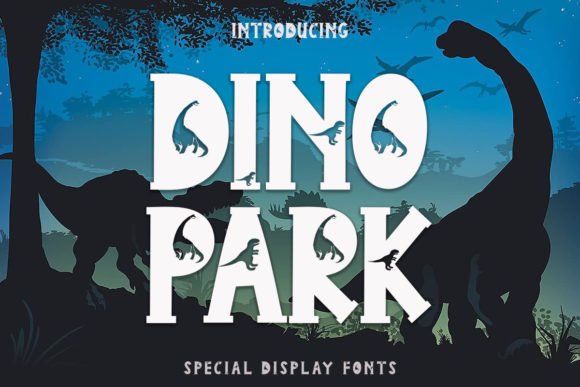
Discover the Roar of Creativity with Dino Park Font
Do you remember the excitement of drawing dinosaurs as a child? The thrill of bringing those prehistoric creatures to life with every scribble and every color? That same sense of wonder and creativity is exactly what Dino Park Font aims to capture, making it the perfect companion for any project that needs a dash of fun and playfulness.
As a display font, Dino Park Font is designed to be friendly and approachable, making it an ideal choice for children’s activities, school projects, and any other endeavor that requires a youthful and energetic vibe. With its unique blend of authenticity and playfulness, Dino Park Font is a valuable addition to any designer’s toolkit, offering endless possibilities for creative expression.
Dino Park Font Key Features
- Font Family: Dino Park Font is a unique, hand-drawn font family designed to resemble a dinosaur park.
- Character Count: The font family includes over 400 characters, including uppercase and lowercase letters, numbers, punctuation, and special characters.
- Unique Characteristics: The font features a mix of playful, handwritten, and bold styles, with unique flourishes and textures that evoke the feeling of a dinosaur park.
Dino Park Font Review
I recently had the chance to work with the Dino Park Font, and I have to say, it’s a fun and quirky addition to any design project. ✨ The font’s unique blend of modern and retro elements makes it perfect for creating eye-catching headlines and titles. The bold, chunky letters are sure to grab attention and add a touch of playfulness to any design.
Here are some of the things that work well with the Dino Park Font:
- Unique and attention-grabbing letterforms
- Perfect for creating bold and playful headlines
- Works well for titles, headings, and signage
However, there are some limitations to keep in mind:
- May not be suitable for body text or long blocks of text
- Can be a bit overwhelming if used in excess
- May not be the best choice for formal or professional designs
Overall, I think the Dino Park Font is a great addition to any design library. While it may have some limitations, its unique personality and playfulness make it a great choice for the right project. Just be sure to use it in moderation and balance it with other fonts to avoid overwhelming your design.
For the most out of Dino Park Font, use it in creative and playful designs such as:
1. Children’s book illustrations.
2. Cartoon character designs.
3. Party invitation templates.
Remember to pair the font with other playful elements to create a cohesive look.
Alternatives to Dino Park Font
Rockwell Font
The Rockwell font is a classic serif font that resembles a traditional printing font. It’s ideal for use in formal documents, magazines, and newspapers where a professional and timeless look is desired.
Compared to Dino Park Font, Rockwell has a more formal and traditional feel, whereas Dino Park Font has a more playful and adventurous vibe. Rockwell is also a more versatile font, suitable for a wide range of applications, whereas Dino Park Font is often used for more creative and whimsical projects.
The Playfair Display font is an elegant and luxurious serif font that adds a touch of sophistication to any design. It’s perfect for use in high-end branding, advertising, and packaging where a sense of luxury and refinement is desired.
Compared to Dino Park Font, Playfair Display has a more refined and sophisticated feel, whereas Dino Park Font has a more playful and adventurous vibe. Playfair Display is also a more ornate font, suitable for use in applications where a sense of drama and flair is desired.
The Great Vibes font is a modern and stylish sans-serif font that adds a touch of sophistication and elegance to any design. It’s ideal for use in modern branding, advertising, and packaging where a sense of style and sophistication is desired.